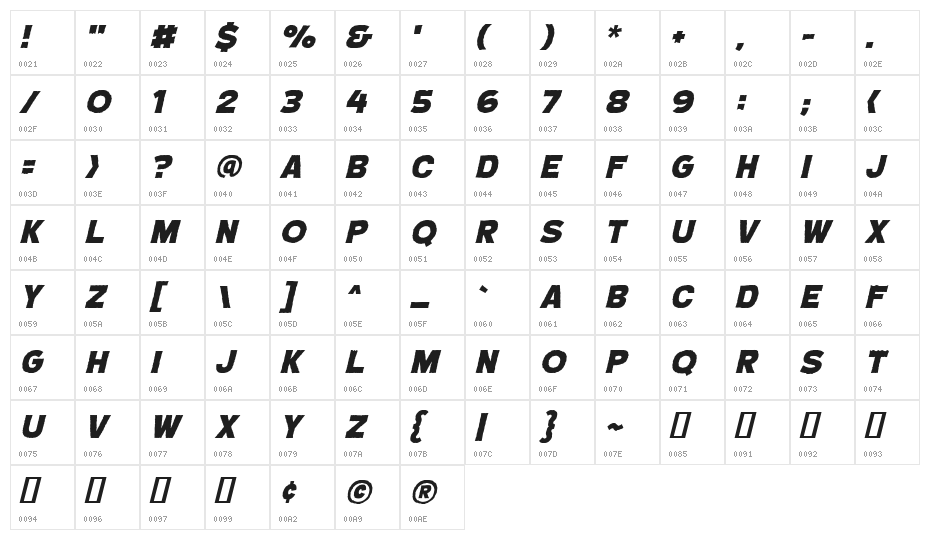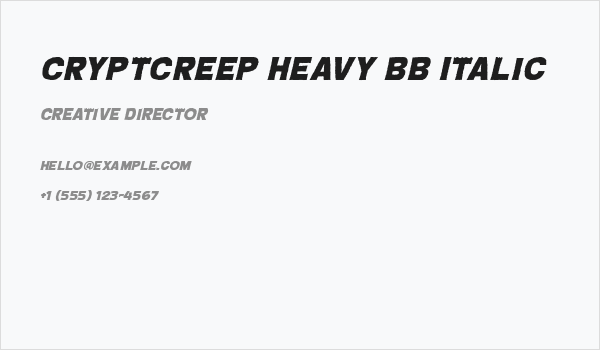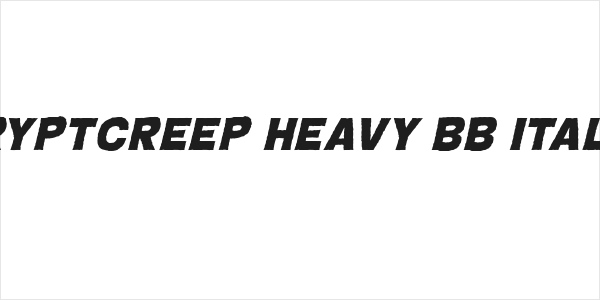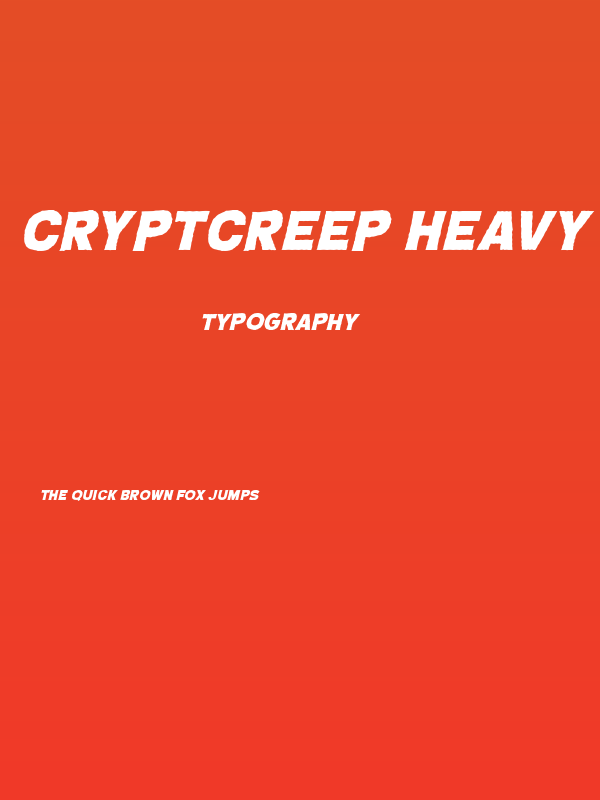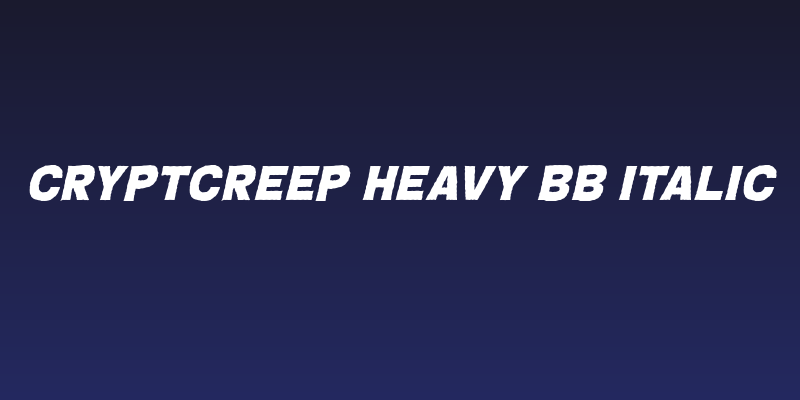
CryptCreep Heavy BB Italic Font
CryptCreep Heavy BB Italic Description
This font features a bold and dynamic style with a strong italic slant, giving it a sense of motion and energy. The characters are heavily weighted, providing a powerful presence on the page. The strokes are thick and consistent, contributing to a robust and impactful appearance. The design includes sharp angles and a slightly condensed width, enhancing its assertive look. The font's overall style is modern and aggressive, making it suitable for attention-grabbing headlines or logos. The character spacing is tight, which adds to its compact and forceful aesthetic.
| Proposed Projects | Ideal for branding, sports team logos, poster headlines, and any project requiring a strong visual impact. |